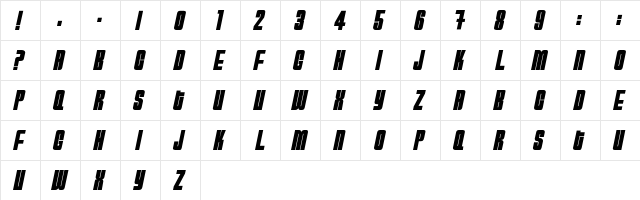
HydrogenBomb Regular
Design Context for HydrogenBomb Typeface
HydrogenBomb is a composed and adaptable typeface that performs quietly and consistently across a wide range of design contexts.